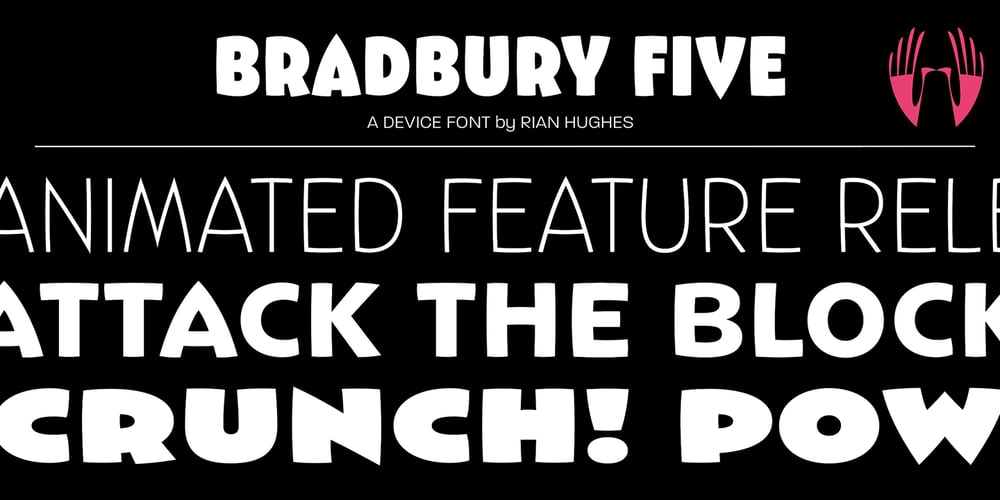
Bradbury Five
Bradbury Five font
Bradbury Five Font Family was designed by Rian Hughes and published by Device. Bradbury Five contains 18 styles and family package options. A stylish cartoon sans reminiscent of lettering by Harvey Kurtzman on early issues of Mad, or other casual mid-century types. The three widths give full versatility for expressive, customised headlines and layouts, while the lighter weights can be used for text. Conveys an approachable, light touch with style and finesse.